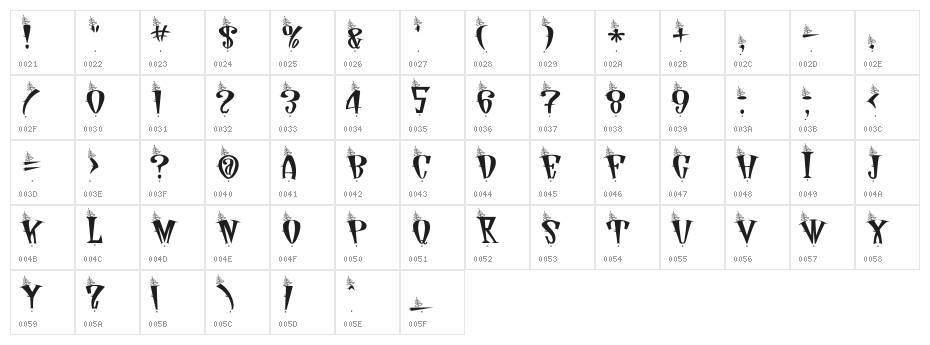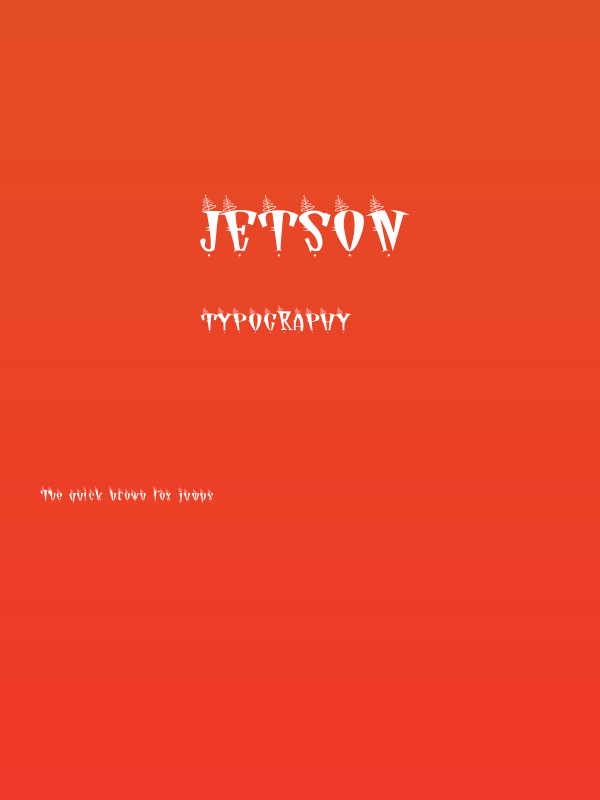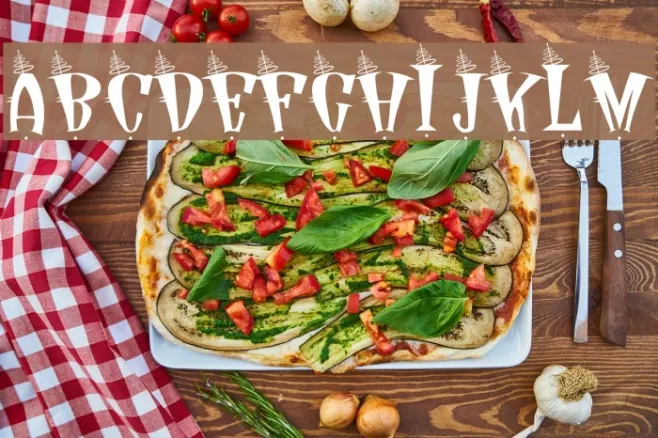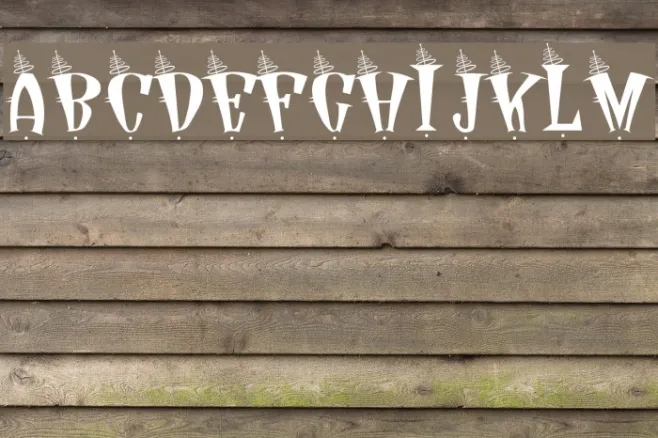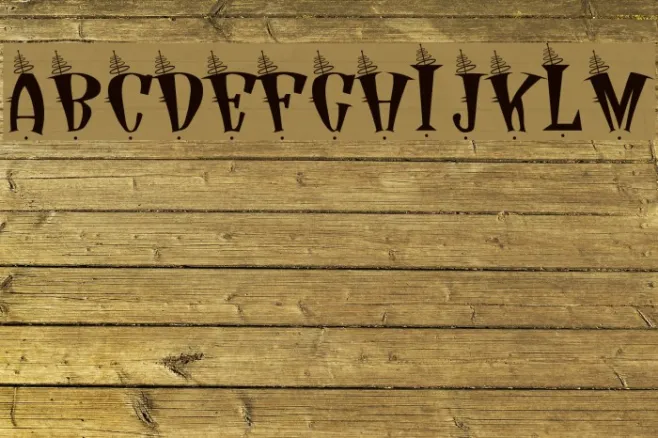
Jetson Font
Jetson Description
This font features a playful and whimsical design, characterized by its unique combination of sharp angles and rounded curves. Each character is adorned with a small decorative element resembling a spiral or tree, adding a festive and quirky touch. The uppercase letters are bold and striking, while the lowercase letters maintain a consistent style with slightly more subtle curves. Numbers and special characters follow the same decorative theme, making the font cohesive and visually interesting. The overall appearance is both modern and artistic, suitable for creative projects that require a distinctive and eye-catching typeface.